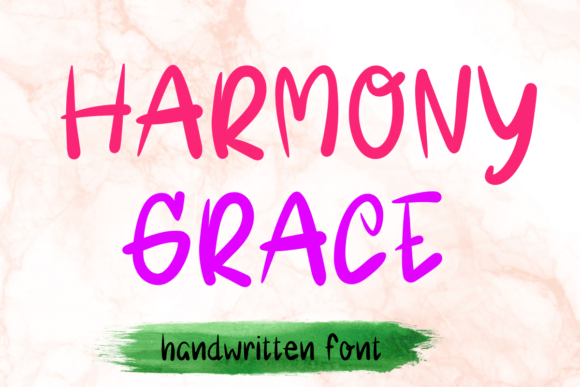
Journey through the world of Harmony Grace, a captivating script font family designed by the talented Piyata Digital. Crafted with meticulous attention to detail, this font embodies elegance, charm, and a touch of playfulness. Its delicate strokes, reminiscent of a gentle breeze, add a unique personal touch to any design project.
Engage your audience with Harmony Grace's natural and flowing appearance. Its authentic handwritten style effortlessly conveys warmth and authenticity, lending a personal touch to your creations. Whether you're designing wedding invitations, greeting cards, posters, or social media posts, Harmony Grace effortlessly adds a touch of sophistication and charm.
Unleash your creativity with Harmony Grace's versatility. Its broad range of applications makes it an indispensable tool for designers seeking a font that seamlessly adapts to various projects. From Easter and back-to-school designs to Christmas cards and party decorations, Harmony Grace beautifully complements any theme or style.
Immerse yourself in a world of endless possibilities with Harmony Grace. Its childlike innocence and playful spirit make it perfect for designs targeting children or those seeking a touch of whimsy. Create enchanting storybooks, vibrant posters for classrooms, or cheerful invitations for birthday parties – Harmony Grace effortlessly captivates the imagination.
With Harmony Grace, transcend the ordinary and embrace the extraordinary. Its versatility extends to a wide range of design projects, from eye-catching logos and branding materials to personalized mugs and tote bags. Its ability to effortlessly blend charm and professionalism makes it a must-have for businesses and individuals seeking to make a lasting impression.